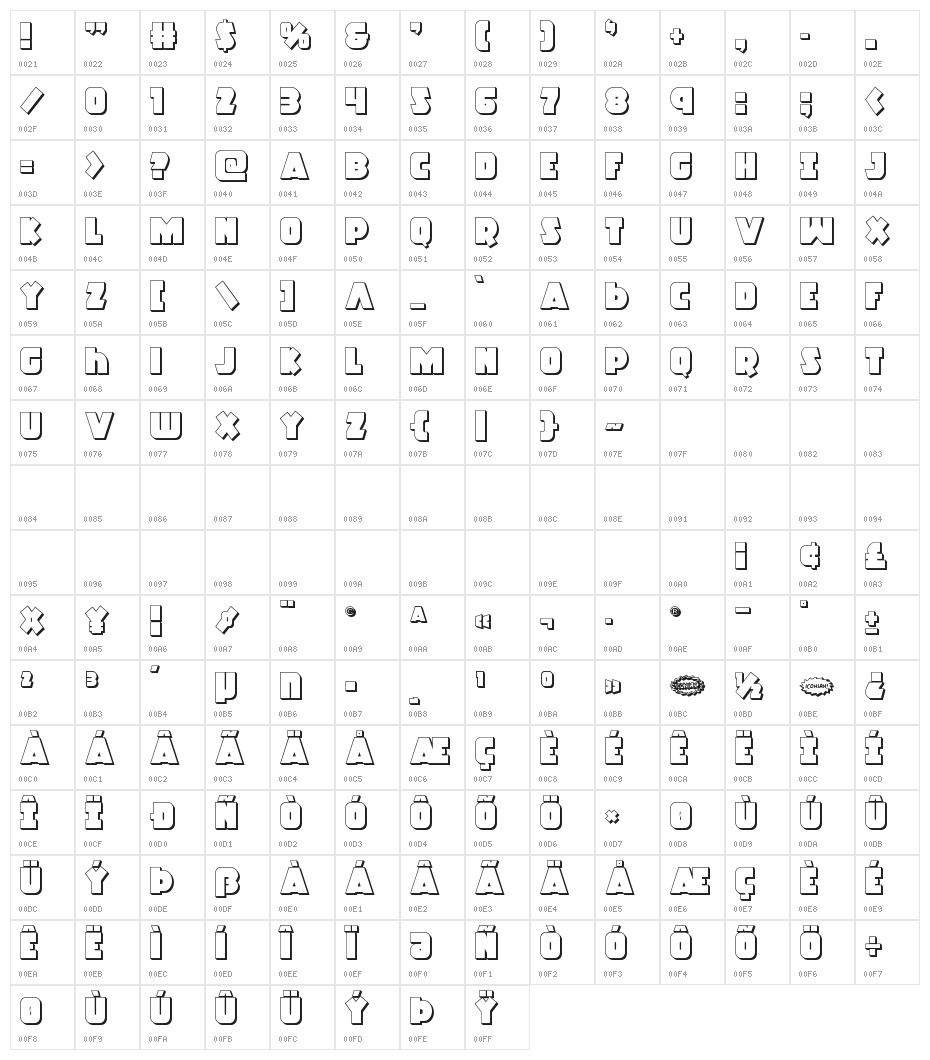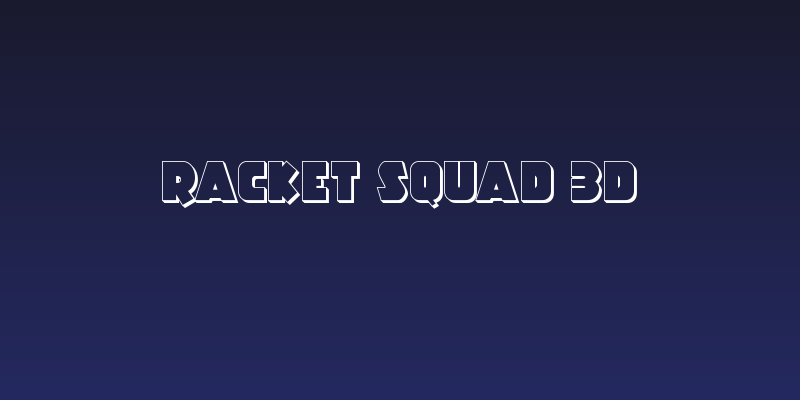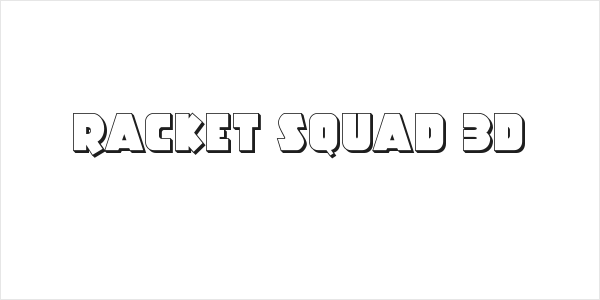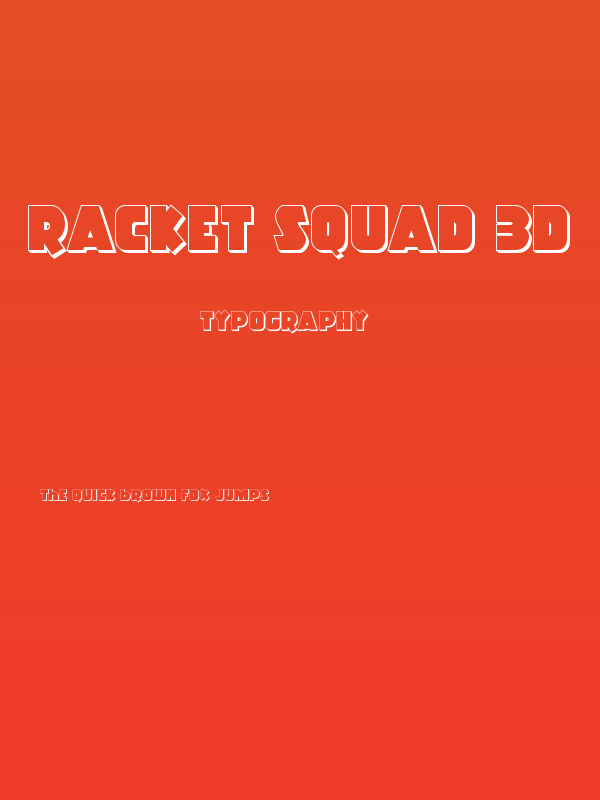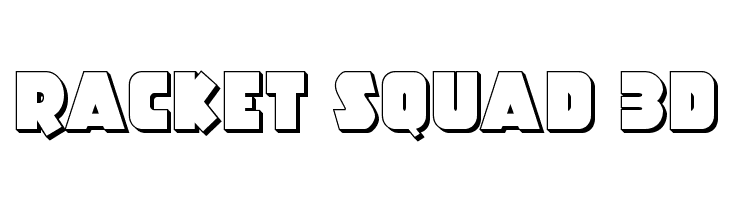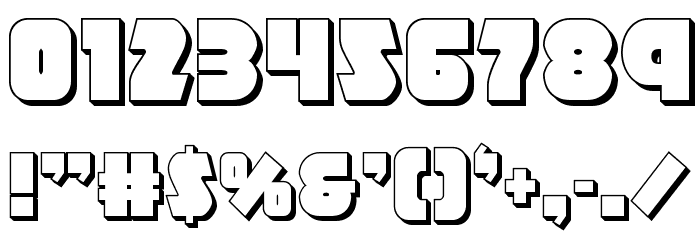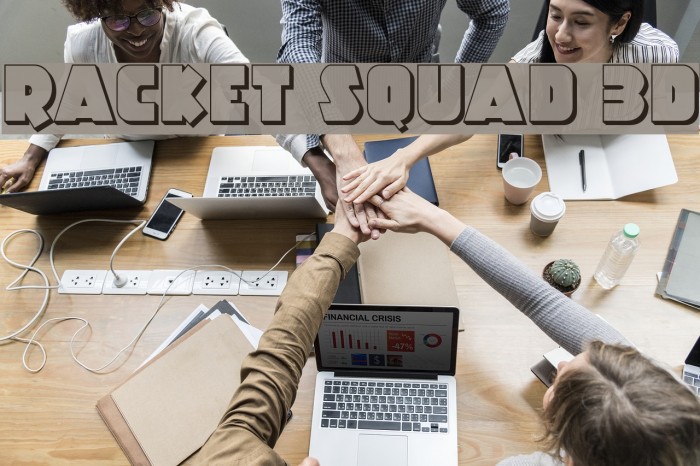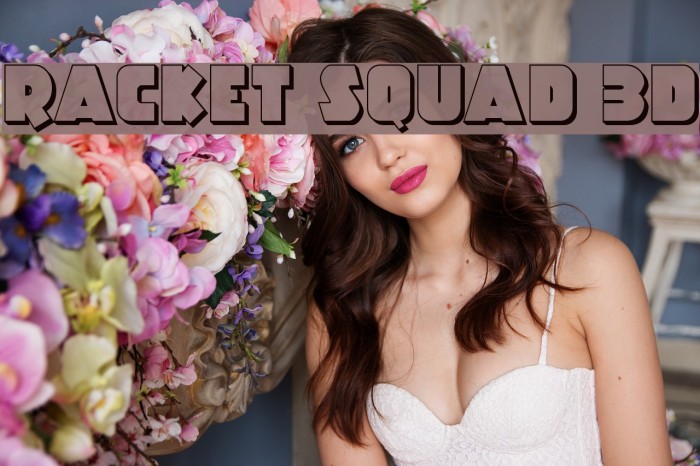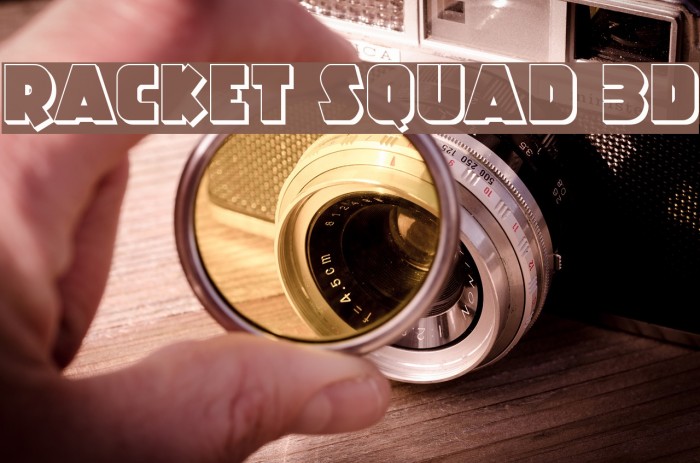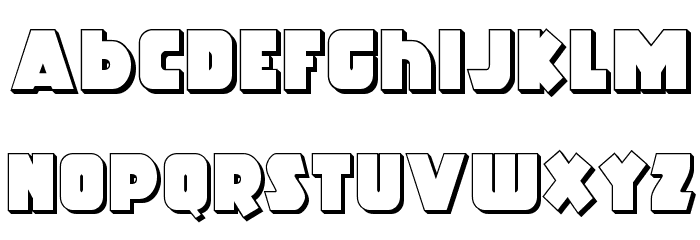
Racket Squad 3D Font
Racket Squad 3D Description
This font features a bold, three-dimensional style that gives each character a striking and impactful appearance. The letters are blocky with a shadow effect that enhances the 3D illusion, making them stand out prominently. The design is consistent across uppercase and lowercase letters, as well as numbers and special characters, maintaining a cohesive look. The font's geometric shapes and clean lines contribute to its modern and playful aesthetic, making it ideal for projects that require a strong visual presence.
| Proposed Projects | Ideal for posters, headlines, video game graphics, and any design needing a bold, eye-catching typeface. |